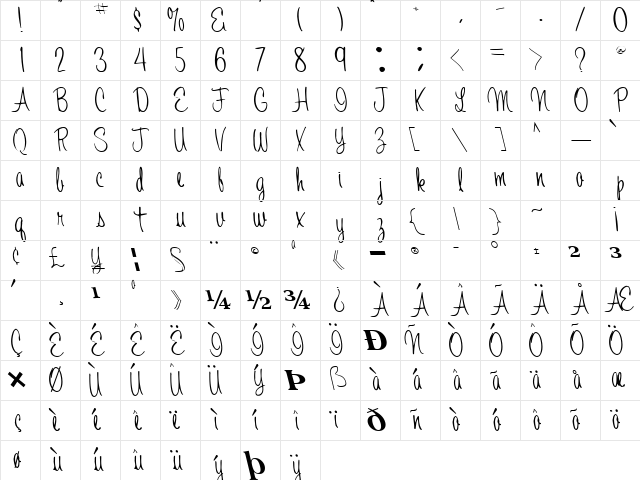
Tad Regular Free Font
Tad Regular
Tad Family
Design Context for Tad
Tad is a composed and adaptable typeface that performs quietly and consistently across a wide range of design contexts.